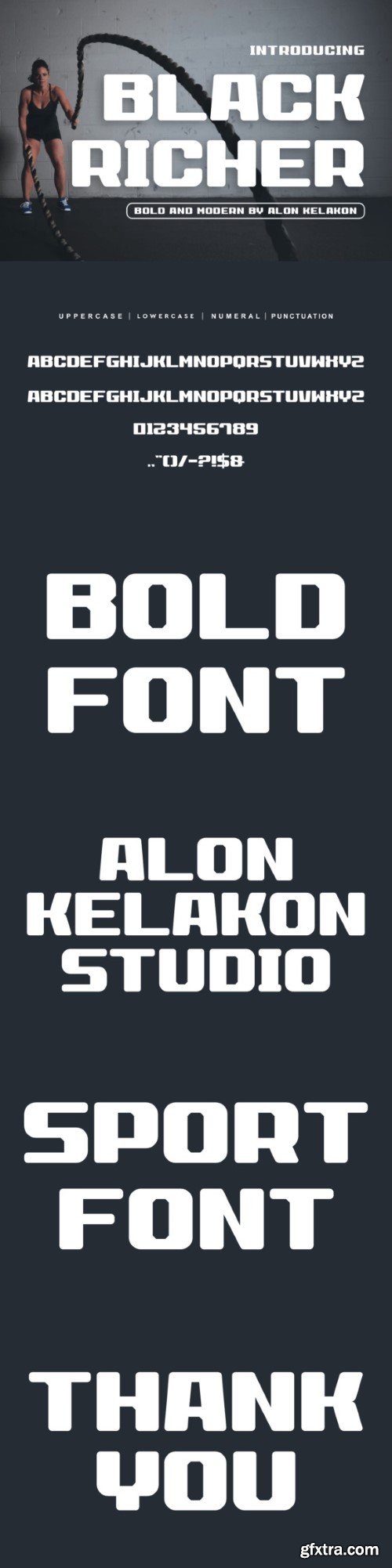
Black Richer Font is unique. Ready to use for your design like labeling, clothing, movie scenes, poster, movie title, gigs, album covers, logos, and much more.